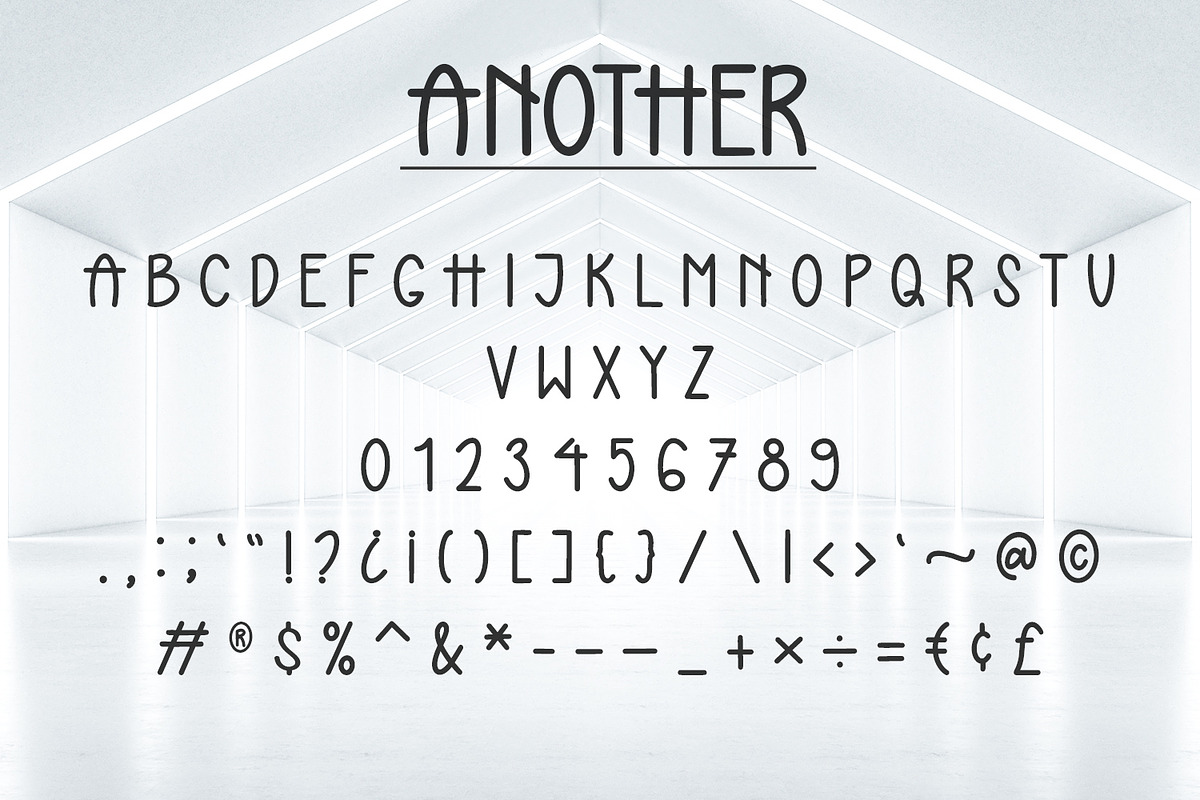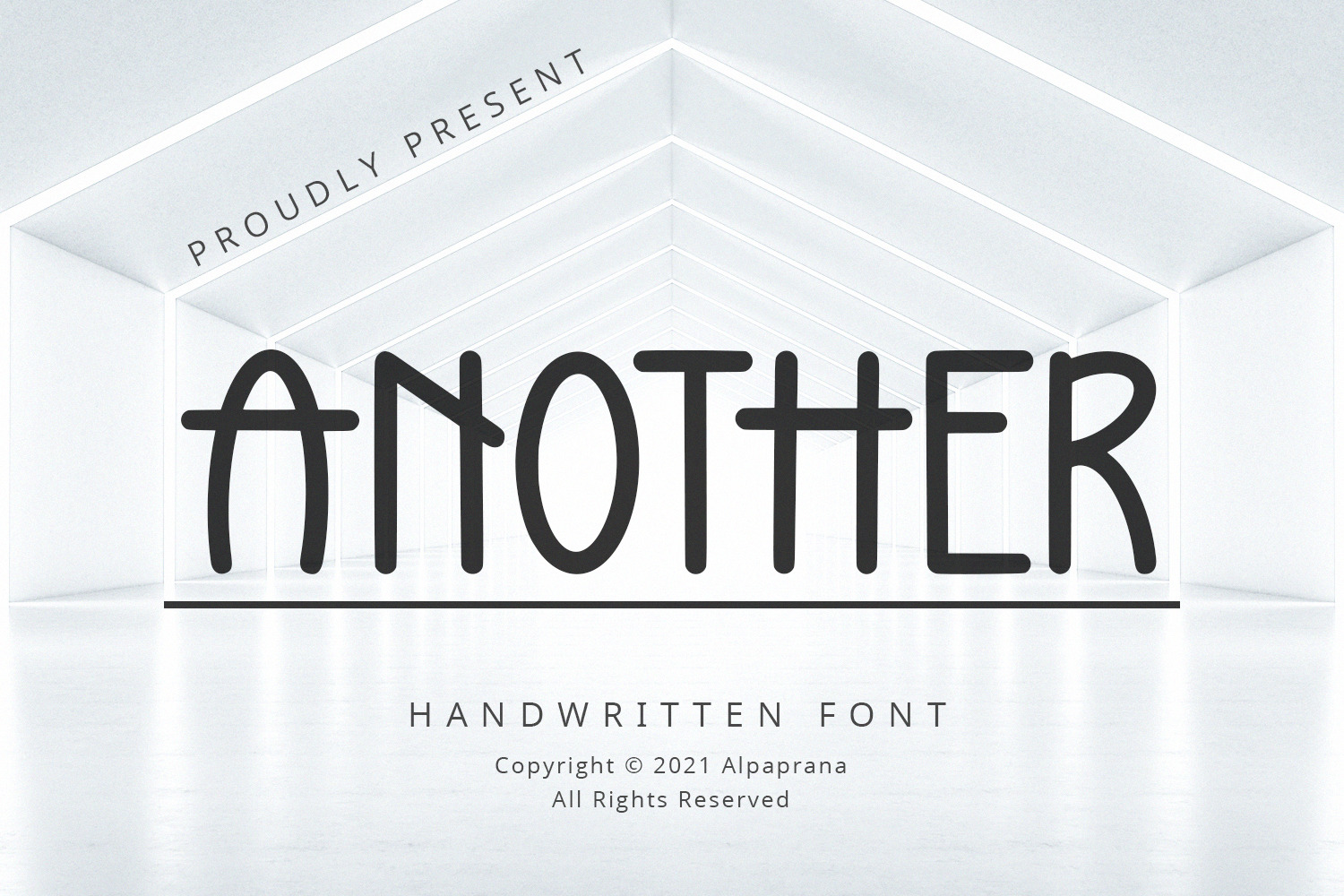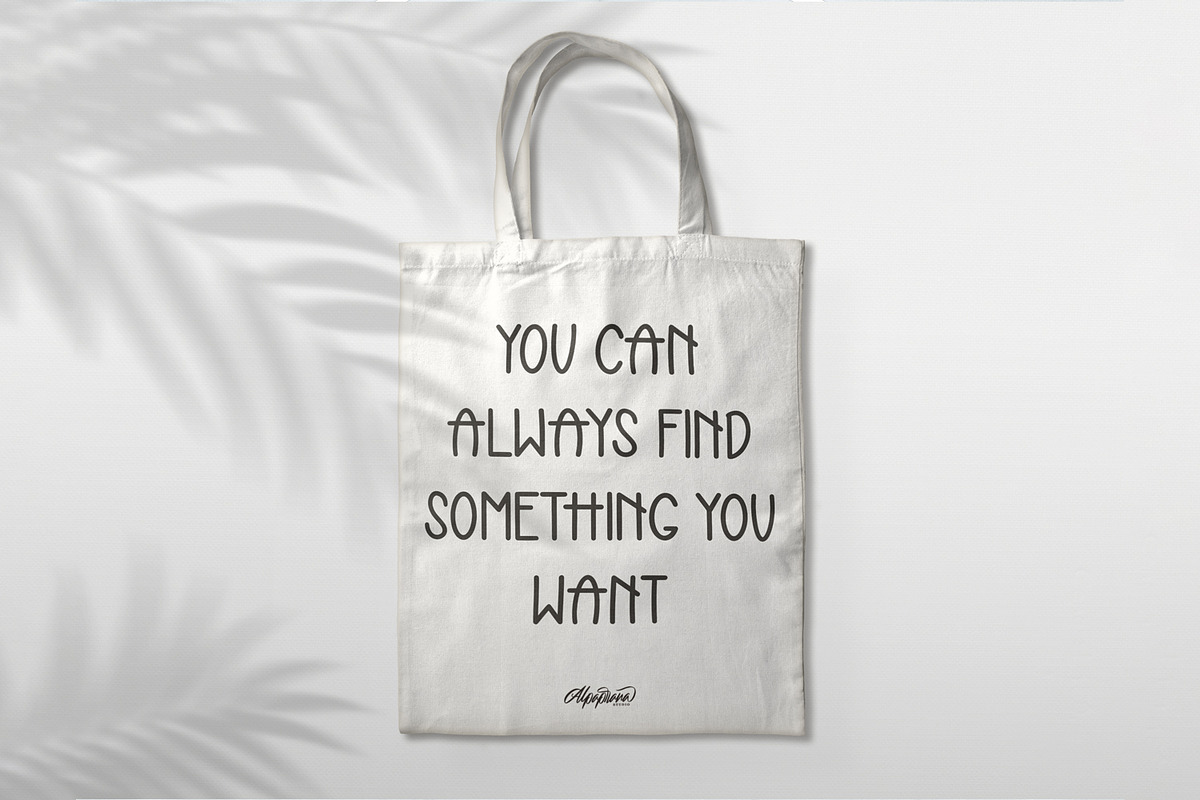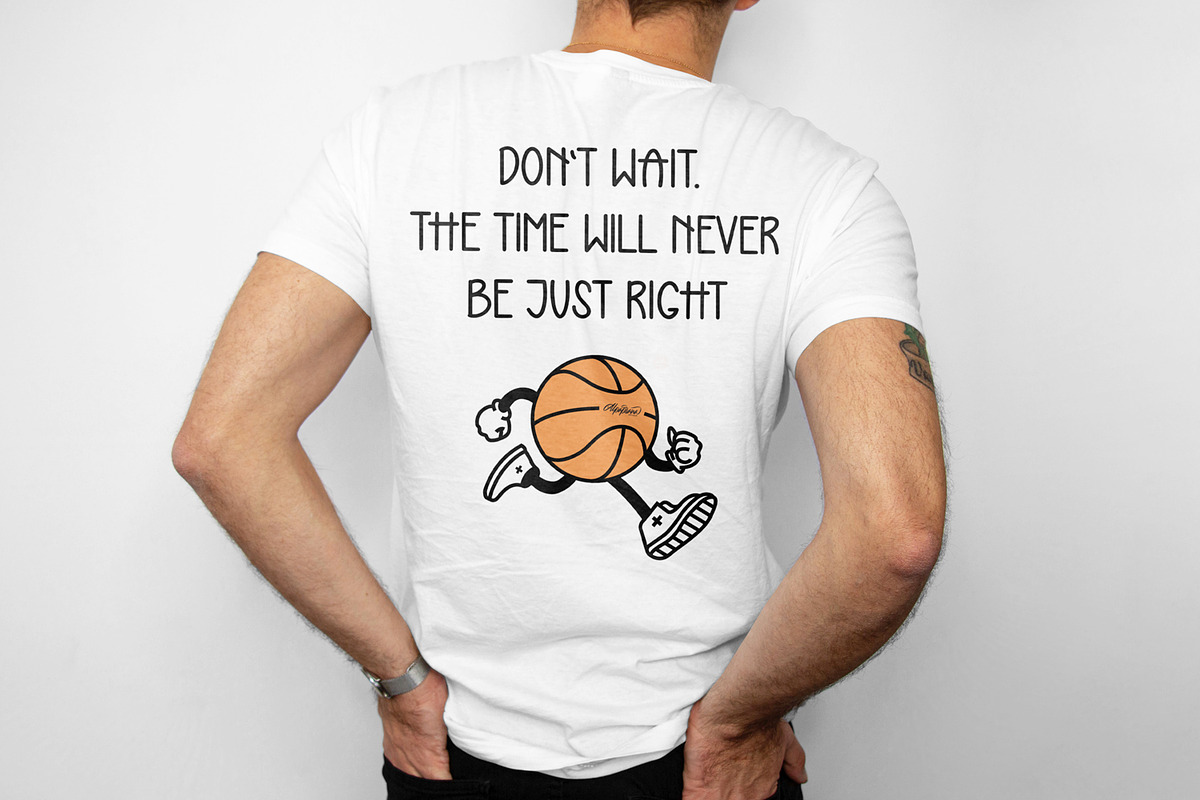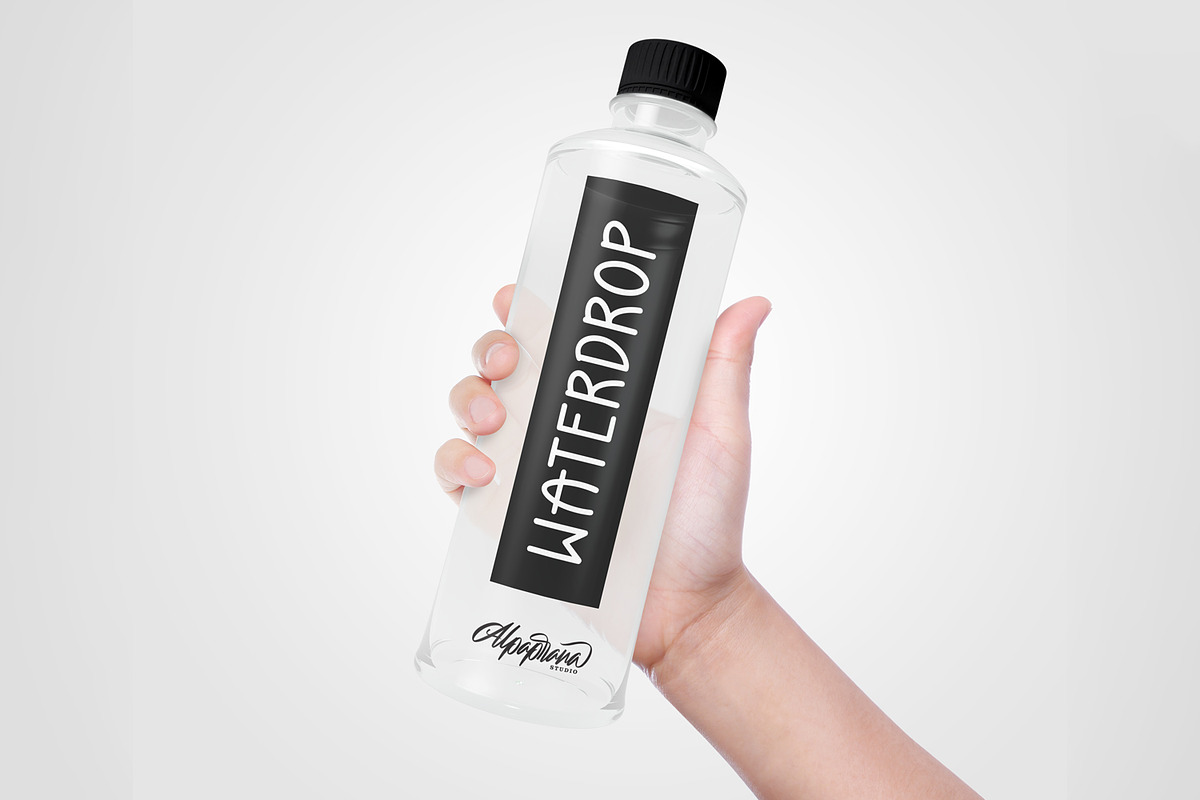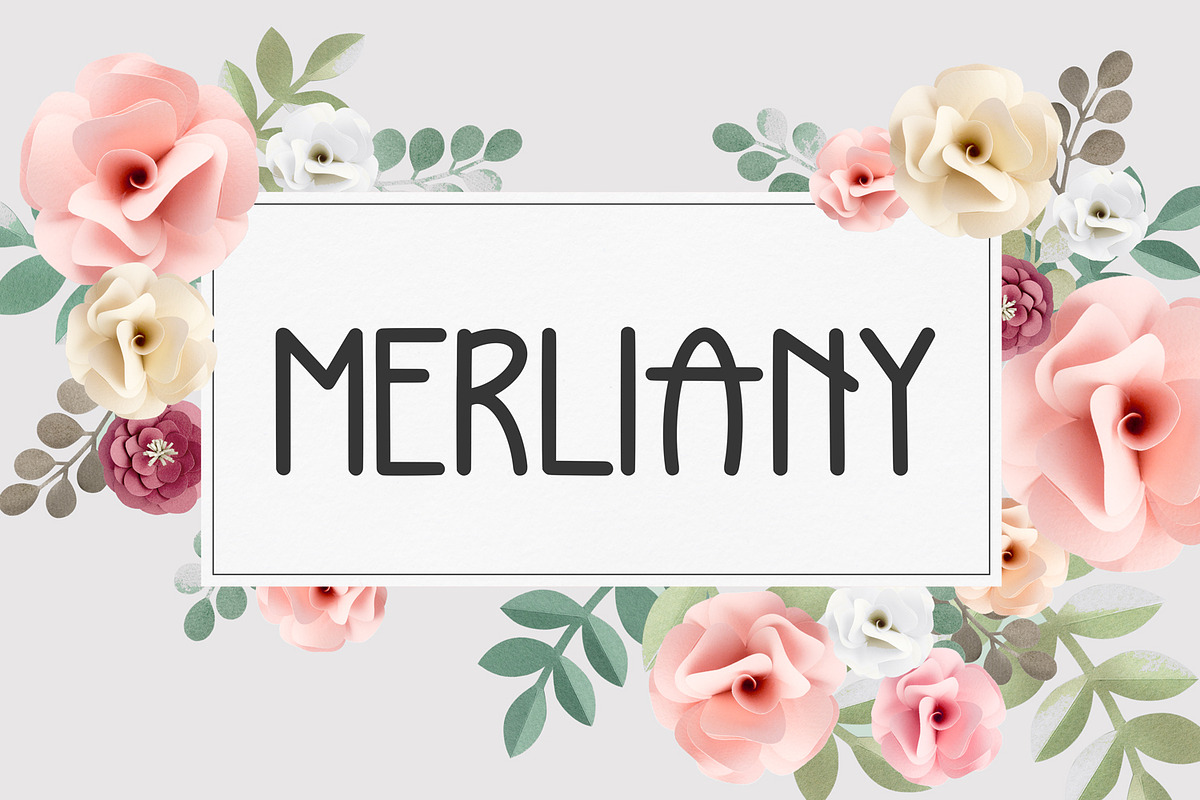
Another - Handwritten Font
Another is a modern handwritten Font with authentic and casual feels. It will be perfectly used for Branding, Logo Design, Lettering, Logotype, Clothing, Poster, magazine, packaging, posters, shopping bags, t-shirts, book covers, photography, special events and other design project.